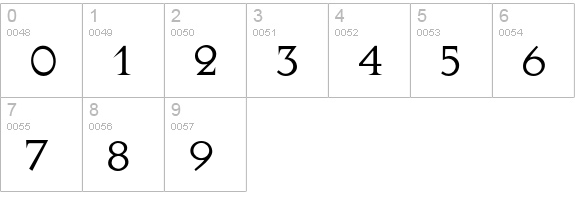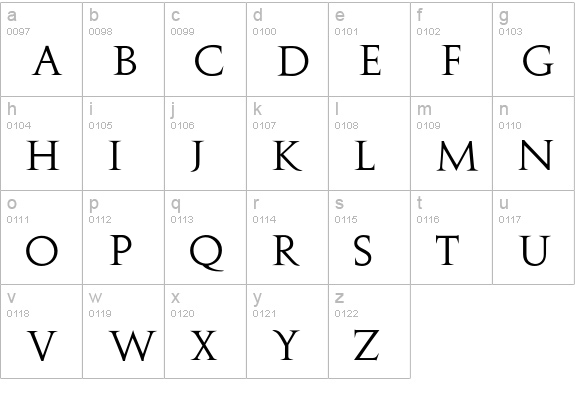
AureaTitling Font Details
AureaTitling font is a stunning display typeface that exudes elegance and sophistication. With its unique serifs and graceful curves, this font is perfect for making a bold statement in your designs. Whether you're creating invitations, logos, or headlines, AureaTitling will add a touch of luxury and class to any project. What's even better is that AureaTitling font is available for free download at FontsMarket.com. This means you can easily access this premium font without any cost, making it a valuable addition to your font collection. Don't miss out on the opportunity to elevate your designs with the timeless beauty of AureaTitling font today!